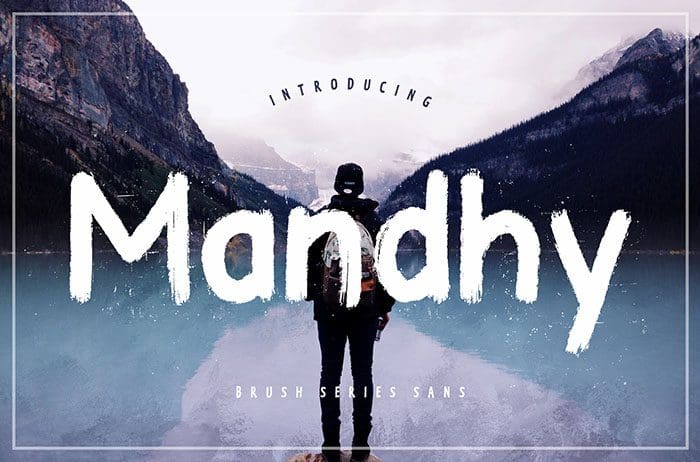
Mandhy Brush Font
Mandhy Brush Font is serif sans fancy with natural movement and brush style. Perfect for branding projects, social media posts, advertisements, and more. Thanks to Creatype Studio for sharing this font! Take a look at this portfolio for more of his stunning fonts.